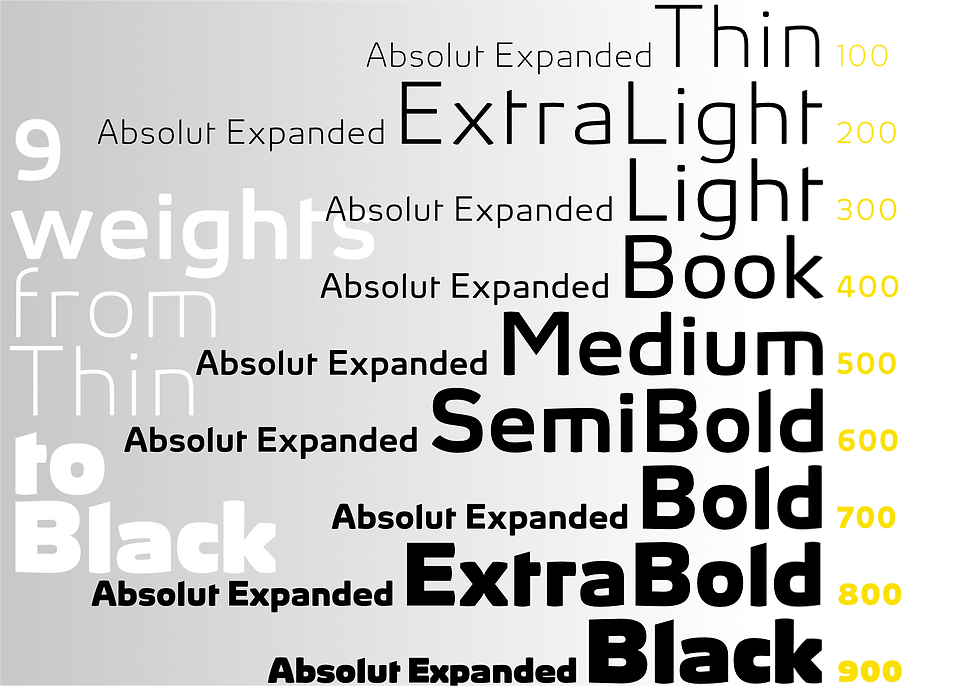
Absolut is the modern typeface for the new millenium. Reduced to the essentials — pure typeface: modern, uncompromising, prosaic, aesthetical. A superfamily with countless variants available as a variable font.
Additional functions can be activated and deactivated as OpenType-Features:
Stylistic Alternates:
replaces the letters a, g, u in each case with the alternative variant.
Ligatures:
replaces the letter pairs ch, ck, ff, fi, fl, ff, fj, ft, th, tt, tz, ffi, ffl with the respective letter combination.
Tabular Numbers:
replaces the normal numbers by means of tabular numbers with identical sign width.
Fractions:
replaces the glyph combinations 1/2, 1/3, 1/4 etc by the according fractions.
Historical Forms:
replaces s with ”long s“ and SS i.e., SZ with capital-ß.
Slashed Zero:
replaces the numeral 0 by the slashed variant
Stylistic Set 1:
replaces the »round« form of a by the »two storied« alternate form.
Stylistic Set 2:
replaces the »round« form of g by the »two storied« alternate form.
Stylistic Set 3:
replaces the »round« form of u by the »broken« alternate form.
Stylistic Set 4:
replaces the standard numerals [1—20] by circled numbers.
Stylistic Set 5:
replaces the standard numerals [1—20] by negative circled numbers.
Absolut Pro Expanded
9 weights, and the corresponding 4 italics